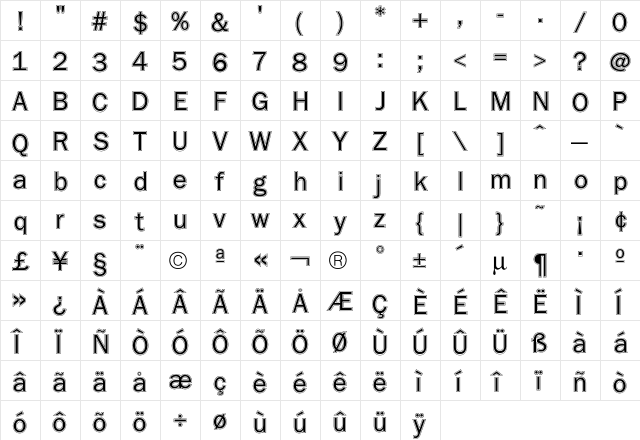
Franklin Contour
Design Context for Franklin Typeface
Franklin offers clean, dependable letterforms without strong stylistic allegiance, making it a practical choice for designers who need flexibility.